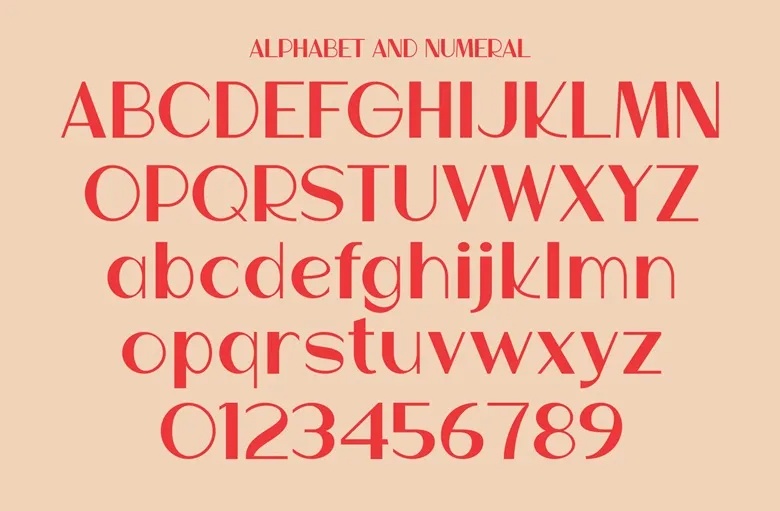
Dearmas Font
Dearmas is a new Christmas-themed, authentic display sans serif font. Its charming and festive style makes it perfect for branding projects such as logos, templates, product packaging, and more. This font stands out beautifully in a variety of creative contexts.
Dearmas Sans Serif Font